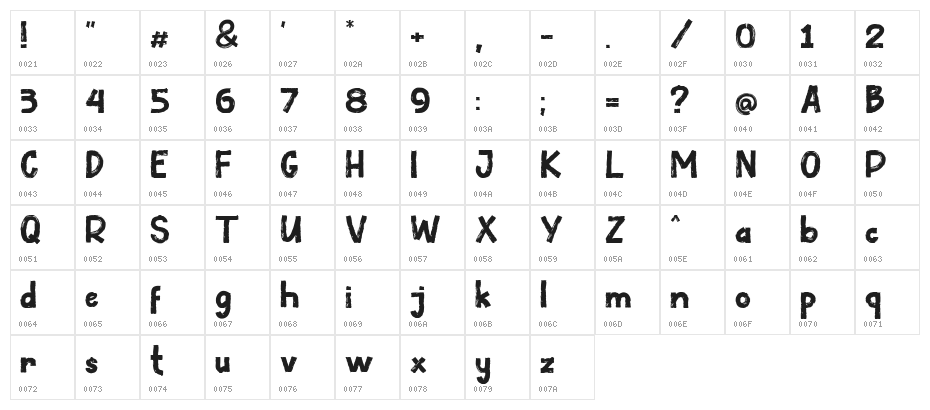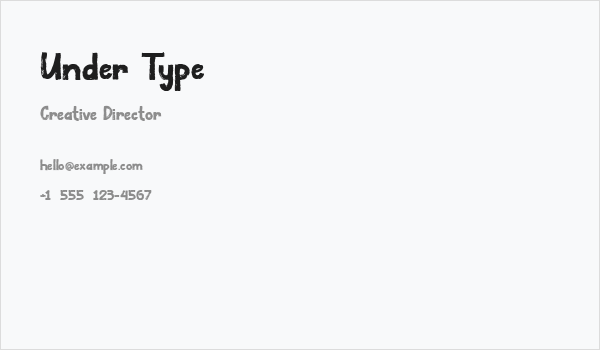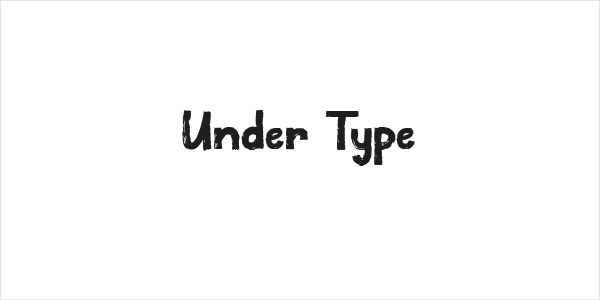
Under Type Font
Under Type Description
This font features a bold and expressive style with a hand-painted appearance. The characters are irregular and textured, giving a rough, artistic feel. The uppercase and lowercase letters maintain a consistent height, while the numbers and special characters follow the same rugged aesthetic. The strokes are thick and uneven, creating a dynamic and energetic look. This font is perfect for projects that require a strong visual impact and a creative, handmade touch.
| Overall Style | Artistic, Energetic |
| Proposed Projects | Ideal for posters, album covers, artistic branding, and creative advertising. |